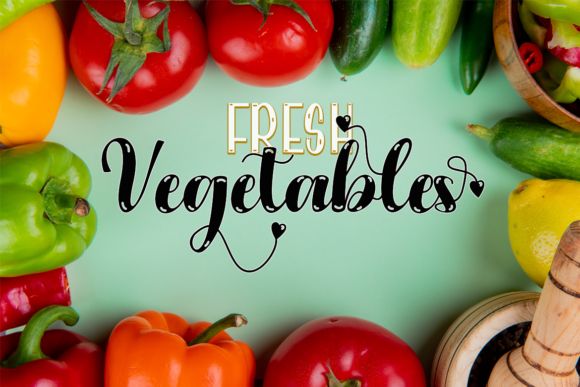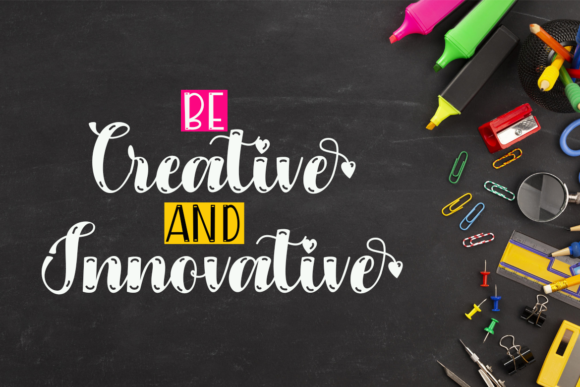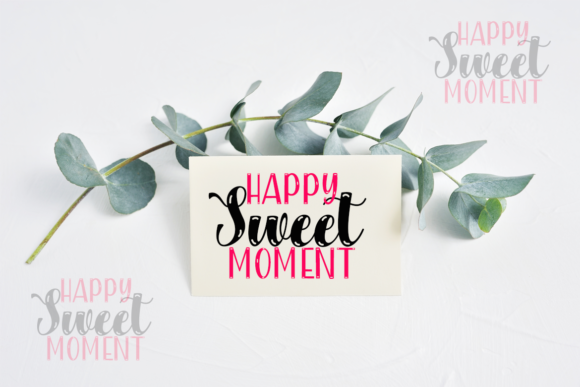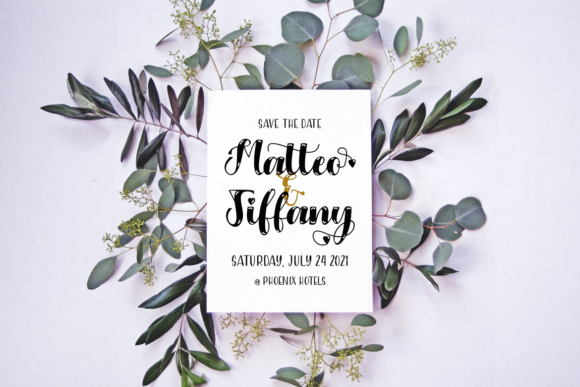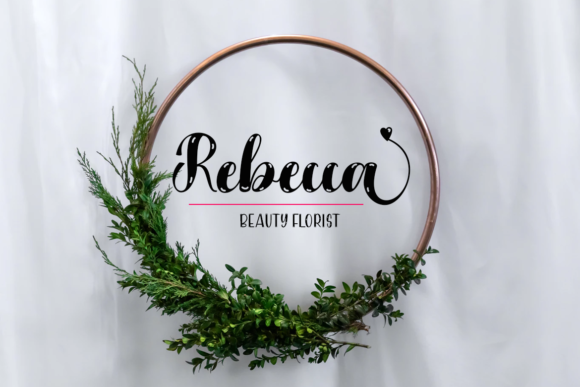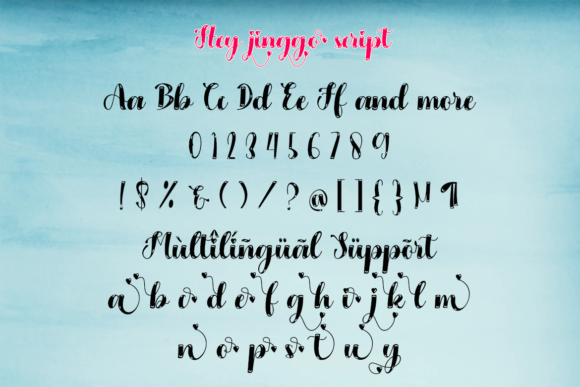
Introduction to Hey Jinggo Font
Have you ever stared at a blank canvas, feeling the weight of creativity on your shoulders? That’s when the magic happens – a spark of inspiration strikes, and your design project begins to take shape. For many of us, finding the perfect font can be the turning point that sets our creative vision in motion. That’s where the Hey Jinggo Font comes in – a joyful and romantic duo font that has captured the hearts of designers worldwide.
With its unique blend of sans serif and script styles, the Hey Jinggo Font is incredibly versatile, making it an ideal design resource for a wide range of creative projects. Whether you’re working on a high-quality branding campaign or a free download design for a special occasion, this font is sure to elevate your work to new heights. And the best part? It’s PUA encoded, allowing you to access all of the glyphs and swashes with ease, giving you complete control over your design.
As a valuable asset in any designer’s toolkit, the Hey Jinggo Font is a must-have for anyone looking to add a touch of romance and whimsy to their work. So why wait? Discover the magic of the Hey Jinggo Font for yourself and unlock a world of creative possibilities.
Key Features of Hey Jinggo Font
- High-quality, hand-drawn design ideal for creative projects and design resources.
- Transparent background, allowing for seamless integration with various backgrounds.
- Unique, playful style with bold lines and vibrant colors, perfect for adding a creative touch to designs.
- Can be easily customized and edited using font editing software, offering endless possibilities for creative expression.
Honest Review: Hey Jinggo Font
Hey Jinggo Font is a free download design resource that I’ve been experimenting with for a creative project. I must say, I’m quite impressed with the high quality of this font.
- What works well: ✨ The transparent background and high quality rendering of the font make it perfect for background or overlay use. I also appreciate the variety of font weights and styles available.
- What works well: ✨ The font is highly versatile and can be used for a wide range of creative projects, from branding to editorial design.
- Limitations: ⚠️ The font may not be suitable for text-heavy designs, as the letterforms can be quite complex and may not render well at smaller sizes.
Overall, I’m very impressed with the Hey Jinggo Font and would definitely recommend it as a design resource for creative projects. Just be mindful of the limitations mentioned above, and you’ll be good to go!
Tips for Getting the Most Out of Hey Jinggo Font
Use a transparent background to create a seamless design. Experiment with different font sizes and colors to add visual interest to your design. Combine Hey Jinggo Font with other design elements to create a unique and creative project.
Hey Jinggo Font is perfect for creating eye-catching headlines, titles, and text elements for your design project. Use it to add a touch of elegance and sophistication to your branding, marketing materials, or website design.